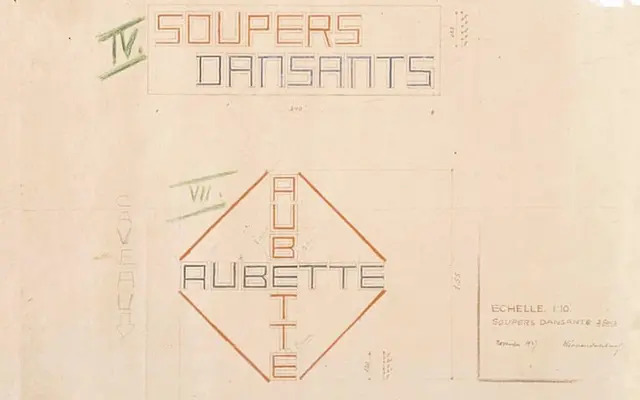
Architype Aubette
The Foundry Types · Theo van Doesburg · 1928
A digital revival of Theo van Doesburg's 1928 signage lettering for the Café Aubette in Strasbourg, one of the landmark projects of Dutch De Stijl.
Part of The Foundry Types' Architype Konstrukt collection, this face is drawn directly from Van Doesburg's hand-lettered signage for the Café Aubette, a collaborative interior project with Jean and Sophie Arp that stood as a high-water mark of 1920s avant-garde theory. The strictly geometric, rectilinear character set reflects De Stijl's ideological constraints, and as with most typefaces in the Konstrukt series, the character set is limited by the experimental nature of its source material. Available via Monotype's distribution network through Fonts.com, FontShop and MyFonts.
Based on Theo van Doesburg's 1928 De Stijl signage lettering, the typeface is a geometric, avant-garde display face rooted in constructivist principles with strictly rectilinear forms.